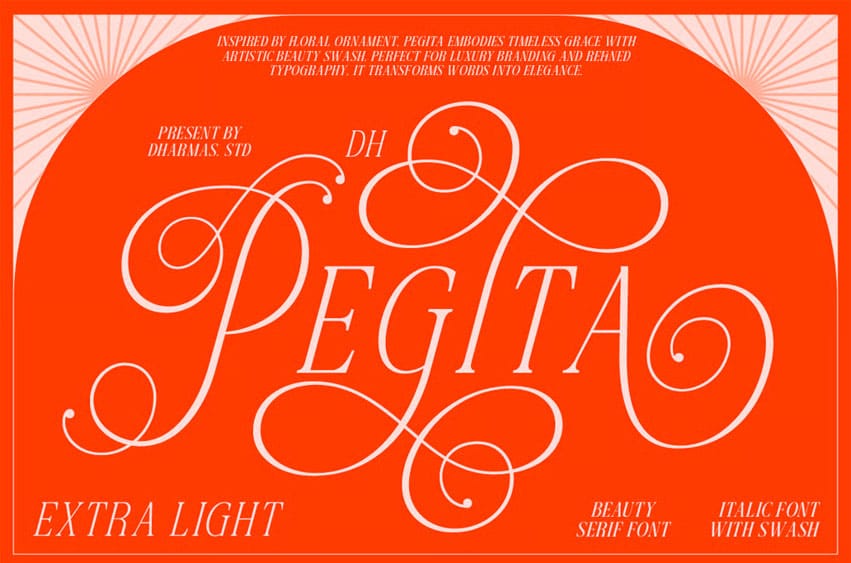
Pegita Extra Light Font is a serif typeface with subtle character details in its design. With fine strokes and carefully balanced contrast, this font provides a light and clear appearance.
This version includes the Extra Light style, designed to give your typography a soft, clean impression with a modern edge. Suitable for designers seeking a clear yet decorative typeface.
Pegita Extra Light Font Features: